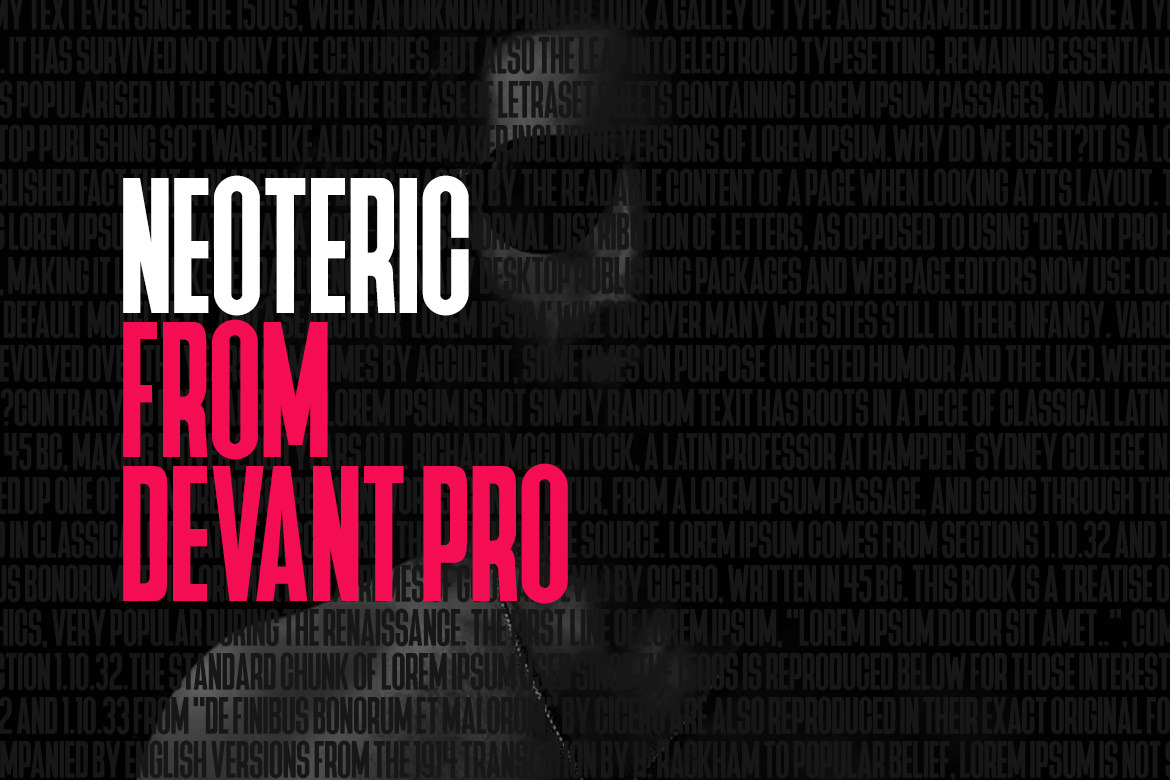
Devant Neoteric Pro Modern Font
Devant Neoteric Typeface
Devant Neoteric is a modern Sans Serif typeface very much suitable for Film Posters, headlines, Block letter, Subheading, Logo Designs, Big Banners. Classic & Decorative Typography Web Designs.